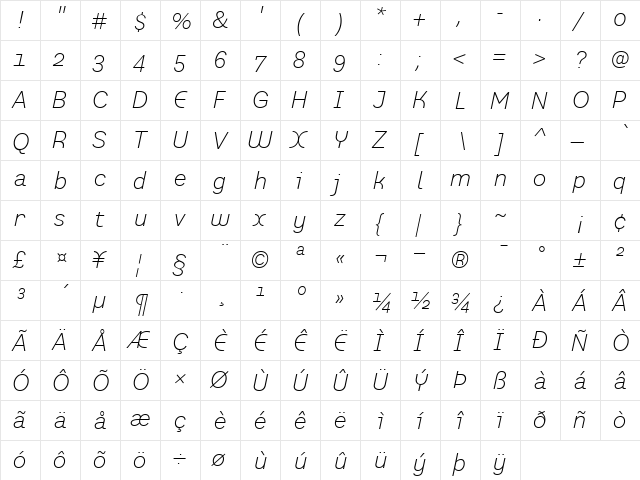
PrefaceLight Italic
Design Context for PrefaceLight Typeface
PrefaceLight takes a measured approach to typography — its balanced proportions and neutral character make it a reliable workhorse for both digital and print work. The slanted form adds forward momentum and visual energy. The delicate stroke weight brings airiness and refinement to layouts.